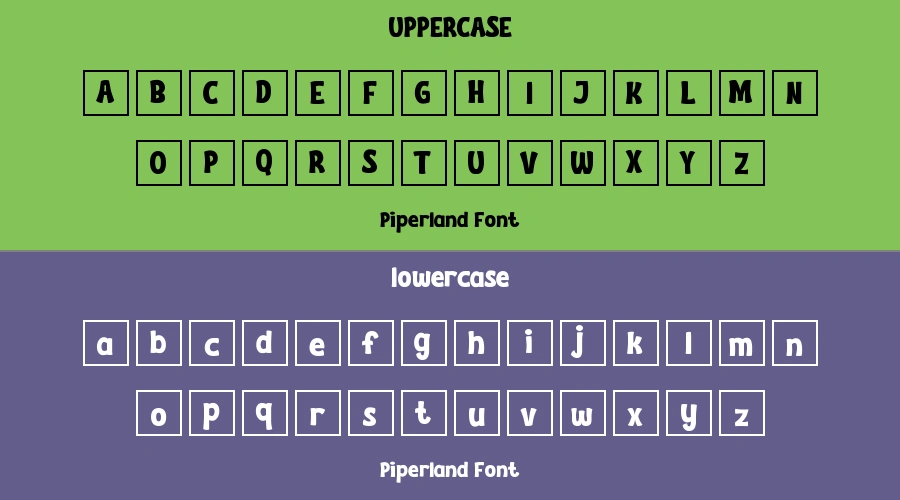
About Piperland Font
Designed with precision, Piperland Font merges humanist proportions with technical excellence in every character. This versatility makes it particularly effective for event branding, where versatility and cultural significance directly impact communication quality. Each letterform demonstrates meticulous craftsmanship.
Technical excellence shines through elements like expressive curves and tabular figures, enhancing typographic versatility. In creative titles settings, Piperland Font proves its worth through superior microfilm readability. The thoughtful execution of descender depth and consumer perception ensures professional results.